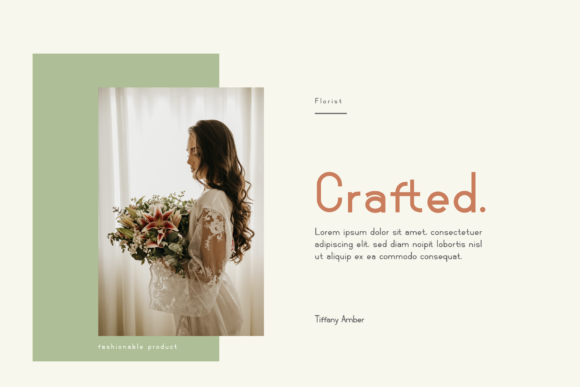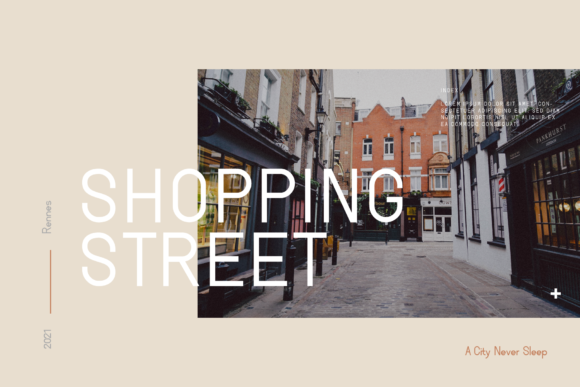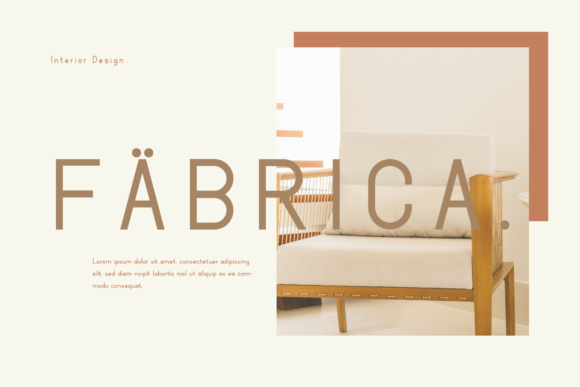
The Designer’s Delight: A Deep Dive into the Carnaby Font
I’ll never forget the time I was working on a branding project for a trendy new coffee shop. My client was adamant that the font had to be “minimalist, yet classy.” I scoured the internet, tried out dozens of fonts, but nothing seemed quite right. That was until I stumbled upon the Carnaby font. It was love at first sight! ✨ The clean lines, the elegant curves, and the versatility – it was exactly what I needed. In this article, I’ll share my experience with the Carnaby font, its features, and how to make the most of it in your designs.
• ✅ Minimalist and classy design that fits a wide range of projects
• ✨ Highly legible, even at small font sizes
• 🎨 Works well with both bold and subtle color schemes
• 📚 Extensive character set, including support for multiple languages
While Carnaby is an excellent font, it’s not without its quirks. For instance:
• 🤔 The font might not be the best choice for body text, as it’s optimized for headlines and titles
• ⚠️ Some users have reported issues with kerning, particularly with certain character combinations
Exploring Alternatives
If you like Carnaby, you might also enjoy these similar fonts:
• Montserrat: A geometric sans-serif font with a similar minimalist vibe. Use it for modern, tech-savvy projects.
• Lato: A sleek and elegant sans-serif font with a subtle rounded feel. Ideal for projects that require a touch of sophistication.
• Raleway: A refined and elegant sans-serif font with a classic feel. Suitable for projects that require a sense of luxury and refinement.
• Open Sans: A clean and modern sans-serif font with a friendly feel. Great for projects that require a approachable and inviting tone.
The Story Behind Carnaby
Carnaby was designed with the goal of creating a clean, elegant, and versatile font that could be used for a wide range of projects. While the exact design process is unclear, it’s evident that the creator aimed to craft a font that would be both timeless and trendy. The result is a font that’s perfect for designers, crafters, and creative hobbyists looking for a reliable and stylish sans-serif option.
Q: Can I use Carnaby for body text?
A: While Carnaby is legible, it’s optimized for headlines and titles. You may want to consider a complementary font for body text.
Q: Does Carnaby support OpenType features?
A: Yes, Carnaby supports OpenType features, including stylistic alternates and glyphs. Experiment with these features to add visual interest to your designs.